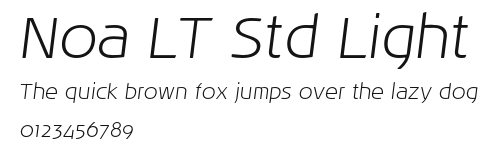
• Font Name: Noa LT Std Light
• Designer: Nina Lee Storm
• Manufacturer: Linotype GmbH
• Description: The Danish designer Nina Lee Storm designed Noa for use on television and computer screens during the late 1990s. She began her six-member type family with the creation of bitmap fonts, developing their print outlines only secondarily. Noa's letters exhibit a tall x-height, coupled with very short ascenders and descenders. Storm is proud to report that her typeface also looks very "Danish".
Noa LT Std Light.ttf is a modern, elegant sans-serif font designed for ultimate readability and visual harmony. Perfect for branding, headlines, web design, and print materials.